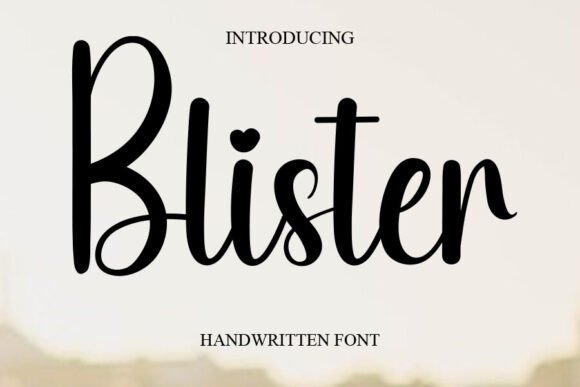
Introducing Blister Font: A Simple yet Versatile Handwritten Font
In the world of typography, fonts play a crucial role in conveying the tone and personality of a brand or project. When it comes to creating a natural and simple feel, a handwritten font can be an excellent choice. This is where Blister Font comes in – a beautiful, simple handwritten font that has a wide range of applications. In this article, we’ll explore the features and benefits of Blister Font, and how it can elevate your next project.
What is Blister Font?
Blister Font is a carefully crafted handwritten font that exudes simplicity and elegance. Its unique charm lies in its effortless, cursive style that gives any text a personal touch. The font is designed to be versatile, making it suitable for various projects, from creative designs to digital content.
Key Features of Blister Font
1. Simple and Handwritten
Blister Font boasts a simple, handwritten style that adds a touch of warmth and personality to any text. Its clean lines and flowing curves create a sense of fluidity, making it perfect for a wide range of applications.
2. Versatile Applications
One of the standout features of Blister Font is its versatility. It can be used for:
- Greeting cards: Add a personal touch to your cards with Blister Font’s warm and inviting style.
- Headlines: Create eye-catching headlines that grab attention with the font’s unique charm.
- Digital content: Use Blister Font to add a touch of personality to your blog posts, social media, or website.
3. Natural Feel
Blister Font is designed to give your project a natural, effortless feel. Its handwritten style creates a sense of authenticity, making it perfect for brands that want to convey a sense of approachability and friendliness.
Benefits of Using Blister Font
1. Enhances Readability
Blister Font’s clean and simple design makes it easy to read, even at smaller font sizes. This ensures that your message is conveyed clearly, without compromising on style.
2. Adds Personality to Your Brand
A well-chosen font can speak volumes about your brand’s personality. Blister Font’s unique charm can help you establish a tone that is friendly, approachable, and inviting.
Blister Font is a simple yet versatile handwritten font that can add a natural and effortless feel to your next project. Its unique charm, clean design, and ease of use make it an excellent choice for a wide range of applications. Whether you’re creating greeting cards, headlines, or digital content, Blister Font is sure to elevate your design and convey your brand’s personality.